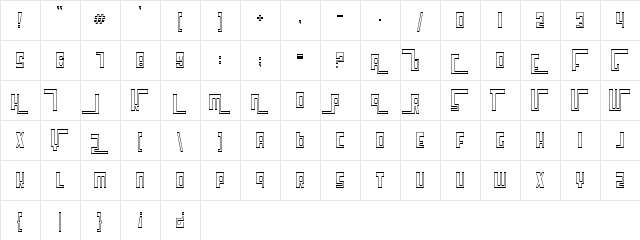
Cosmic Age Outline Regular
Design Context for Cosmic Age Outline Typeface
Cosmic Age Outline is built around its visual character rather than neutral utility — its distinctive forms are designed to make an impression at display sizes.
Font Pairing: Pair with a clean neutral sans-serif for body copy to let Cosmic Age Outline's character lead without overwhelming the composition.
Pro Tip: Treat Cosmic Age Outline as the centrepiece of your typographic hierarchy. One strong heading set in a decorative face can carry an entire layout.